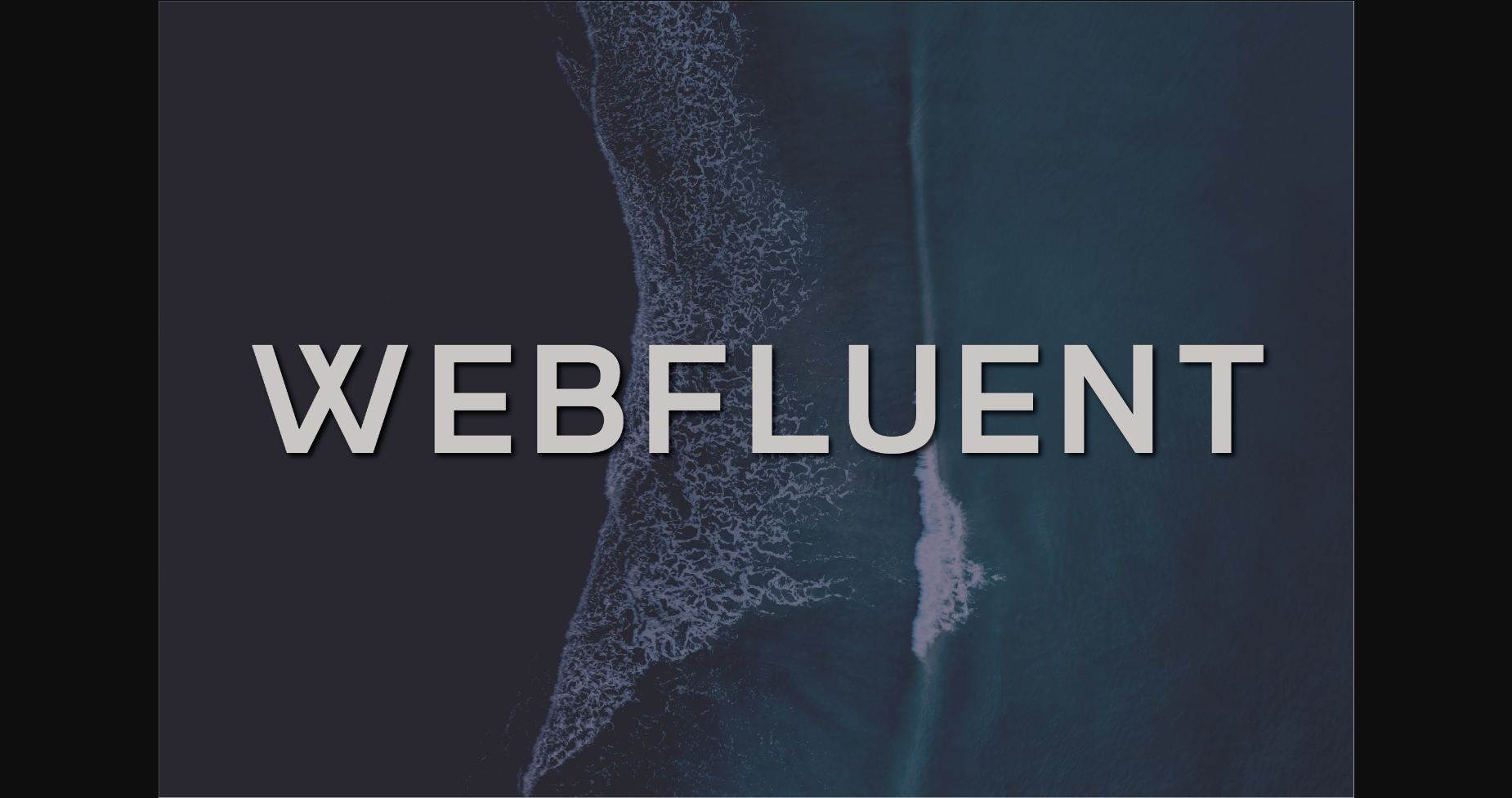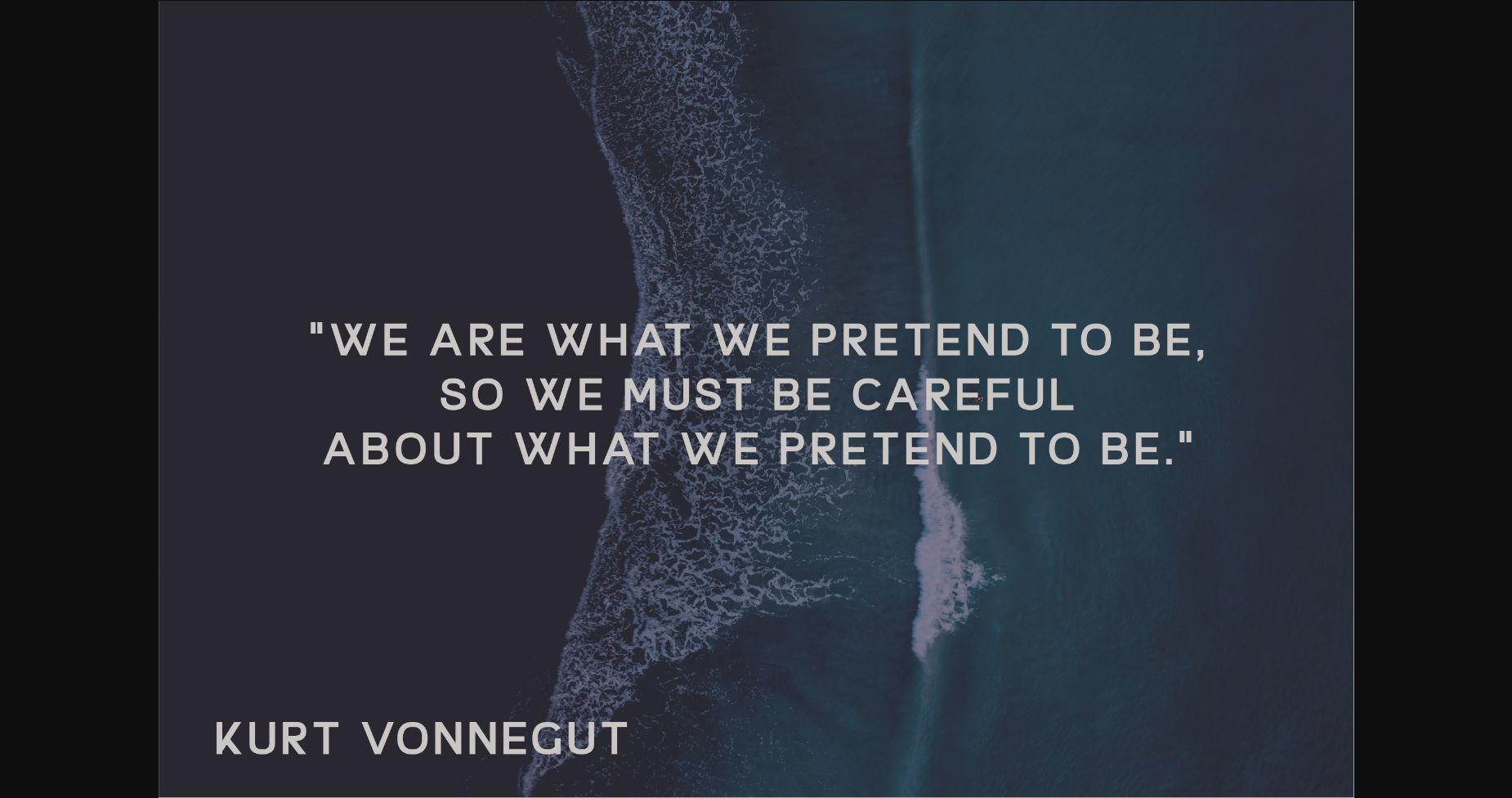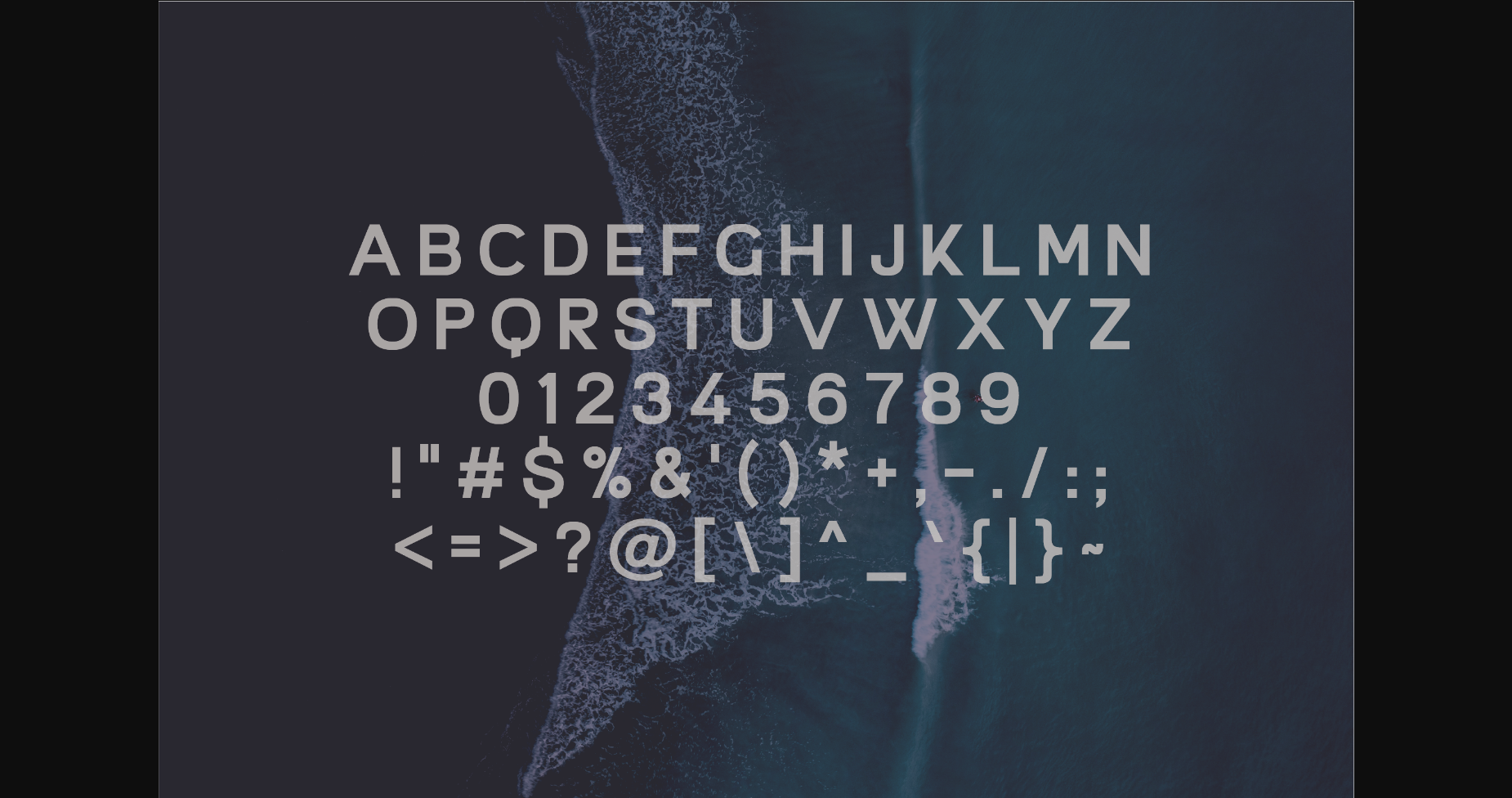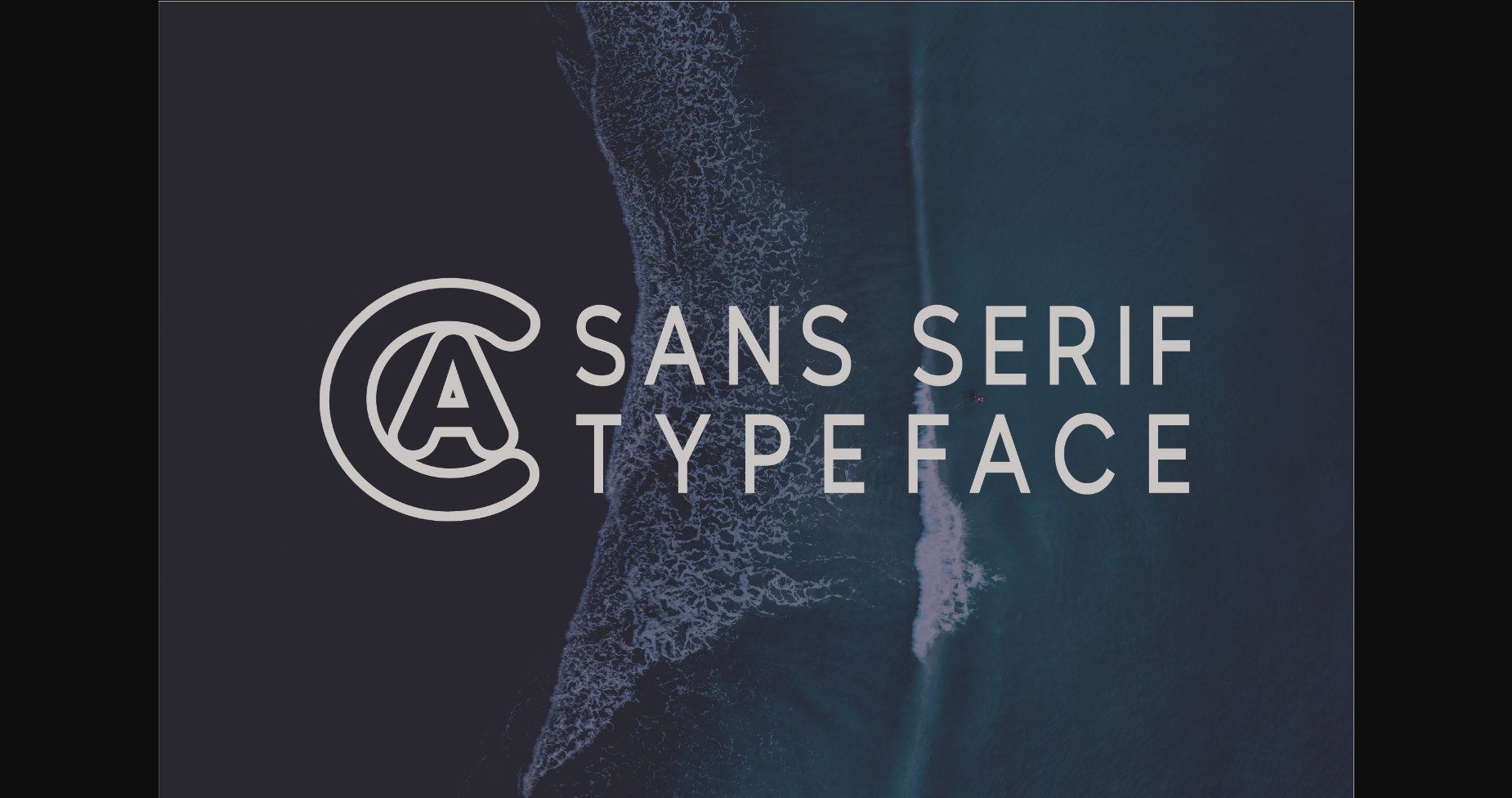
About Webfluent Font
Webfluent is a versatile, modern, and classy sans serif font perfect for logos, weddings, invitations, quotes, advertisements, print, magazines, and more. Add it to your most creative ideas, and notice how it makes them come alive!